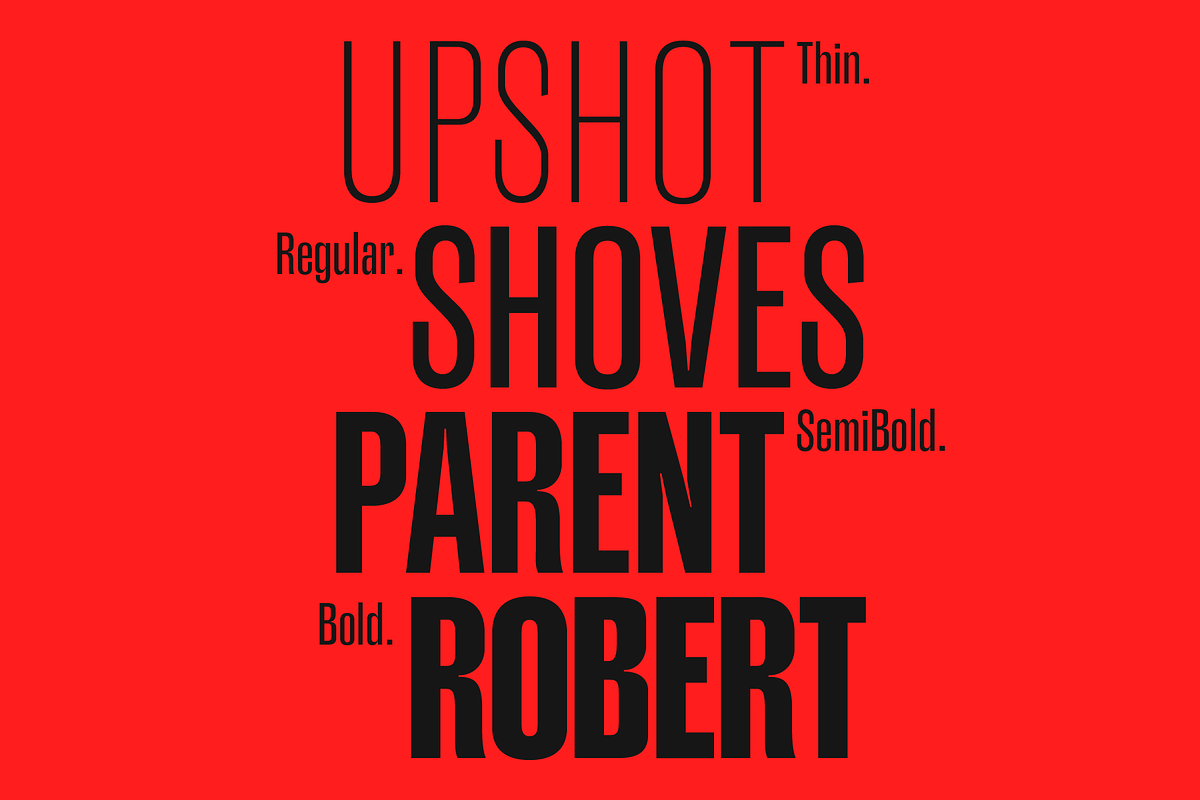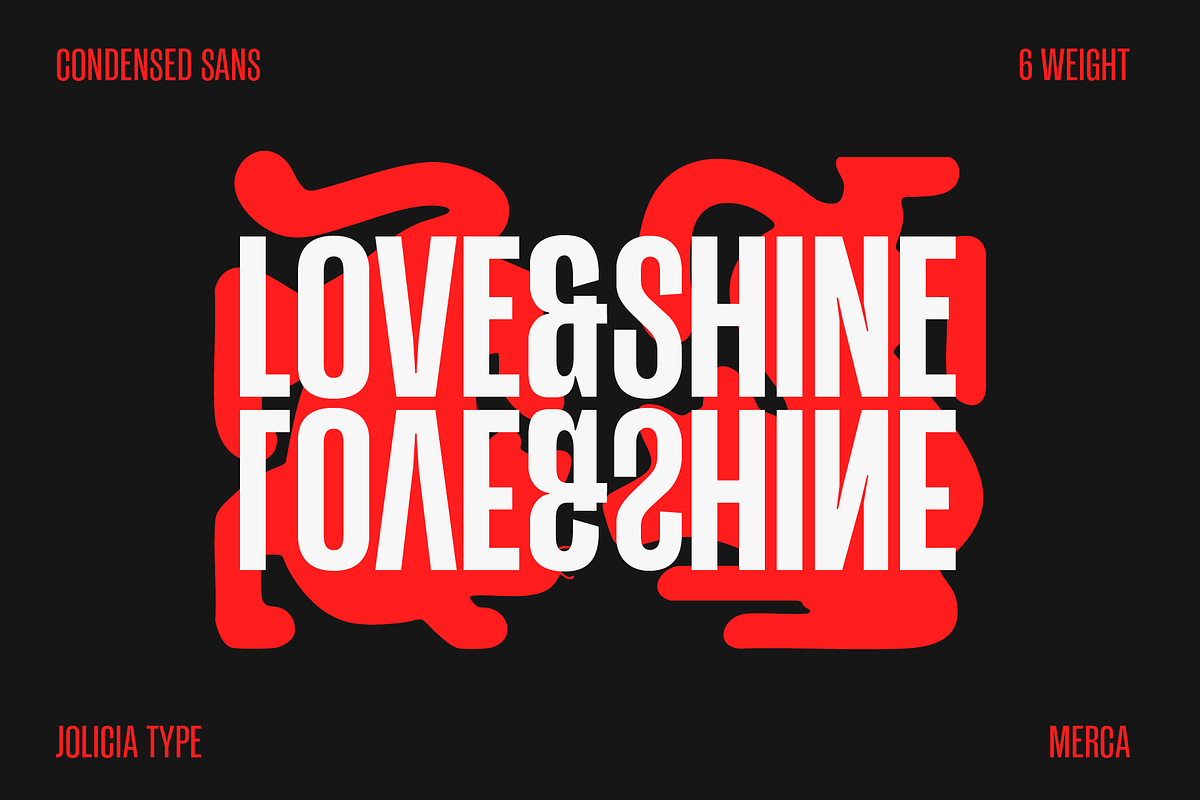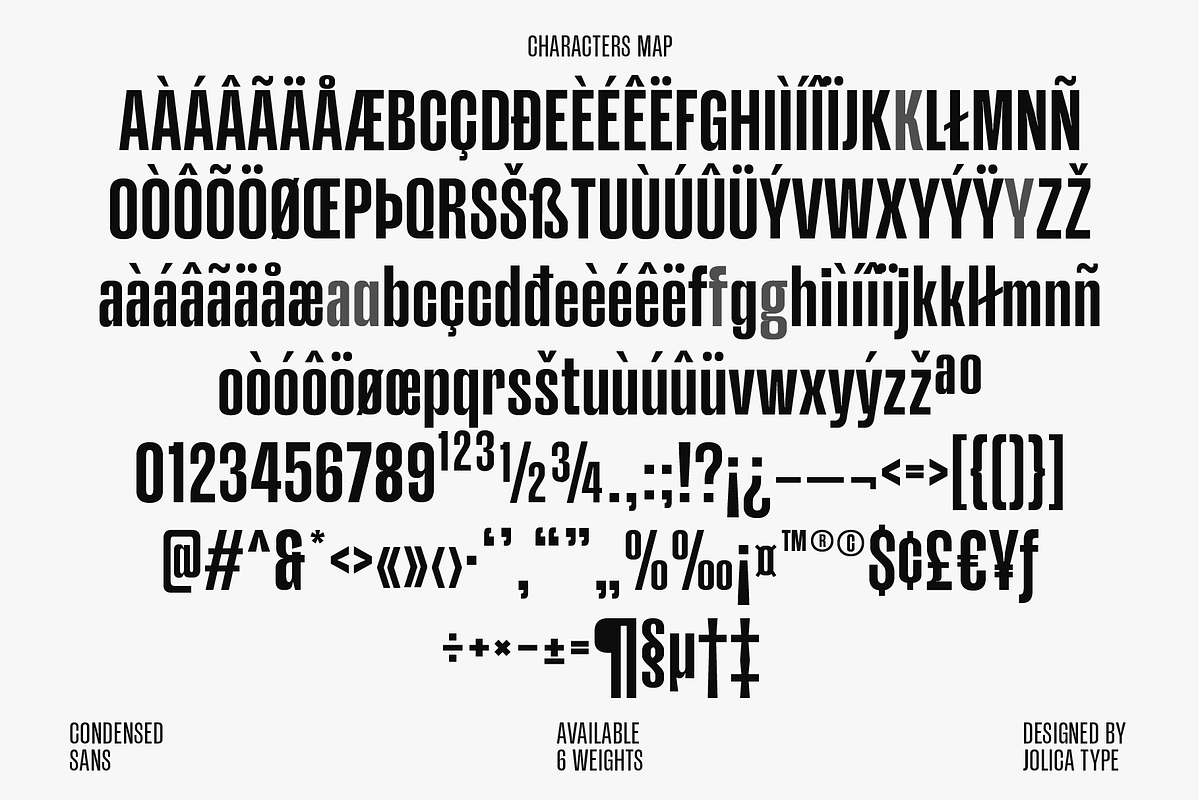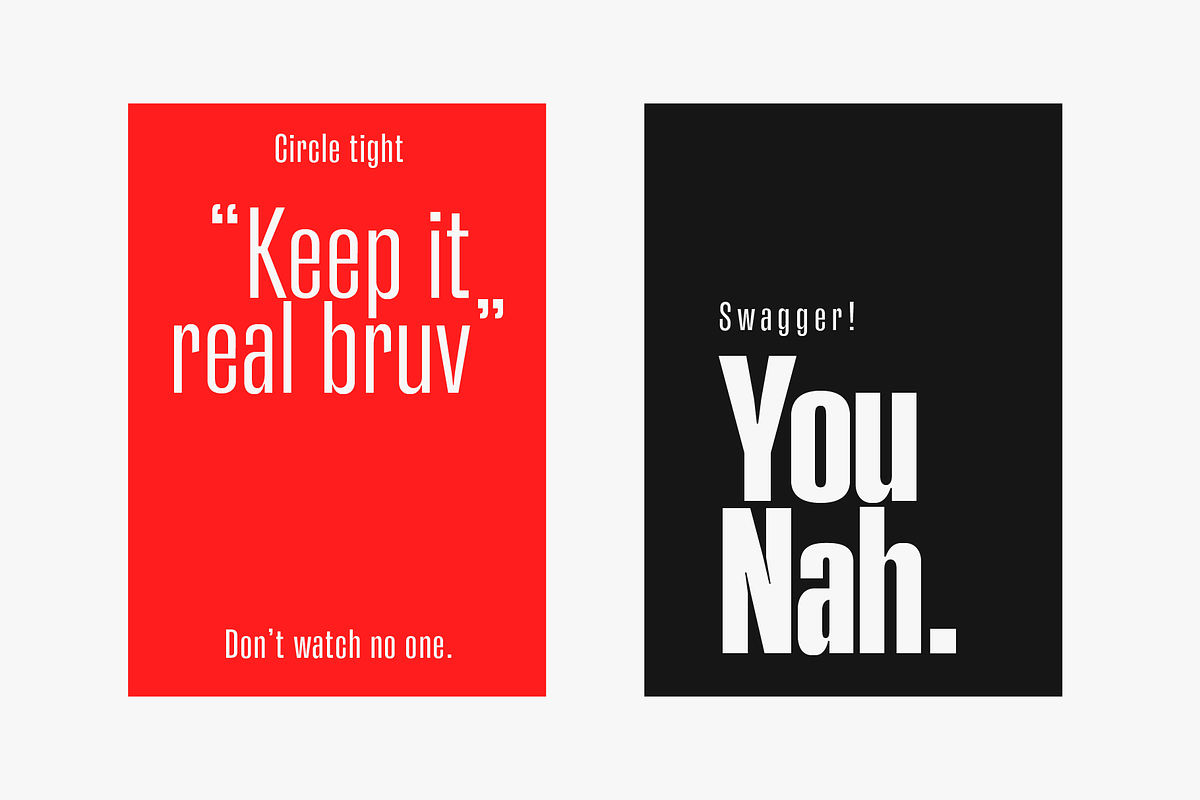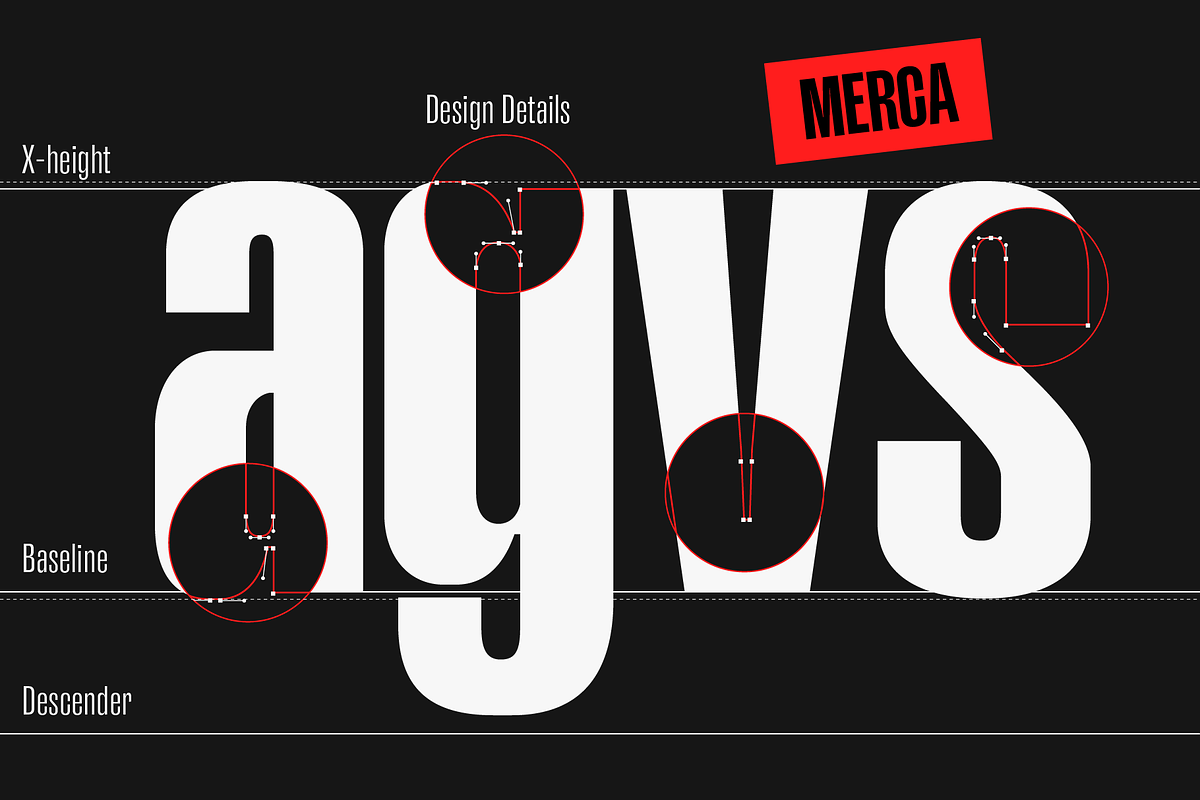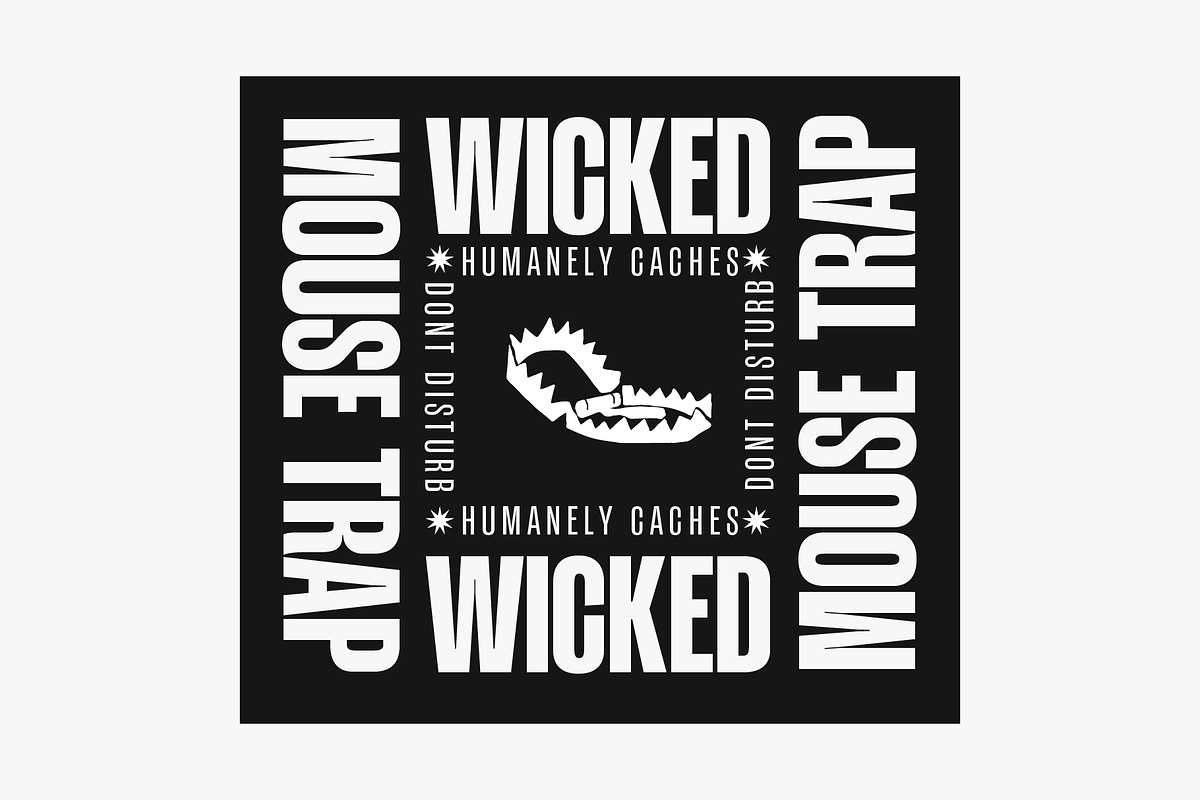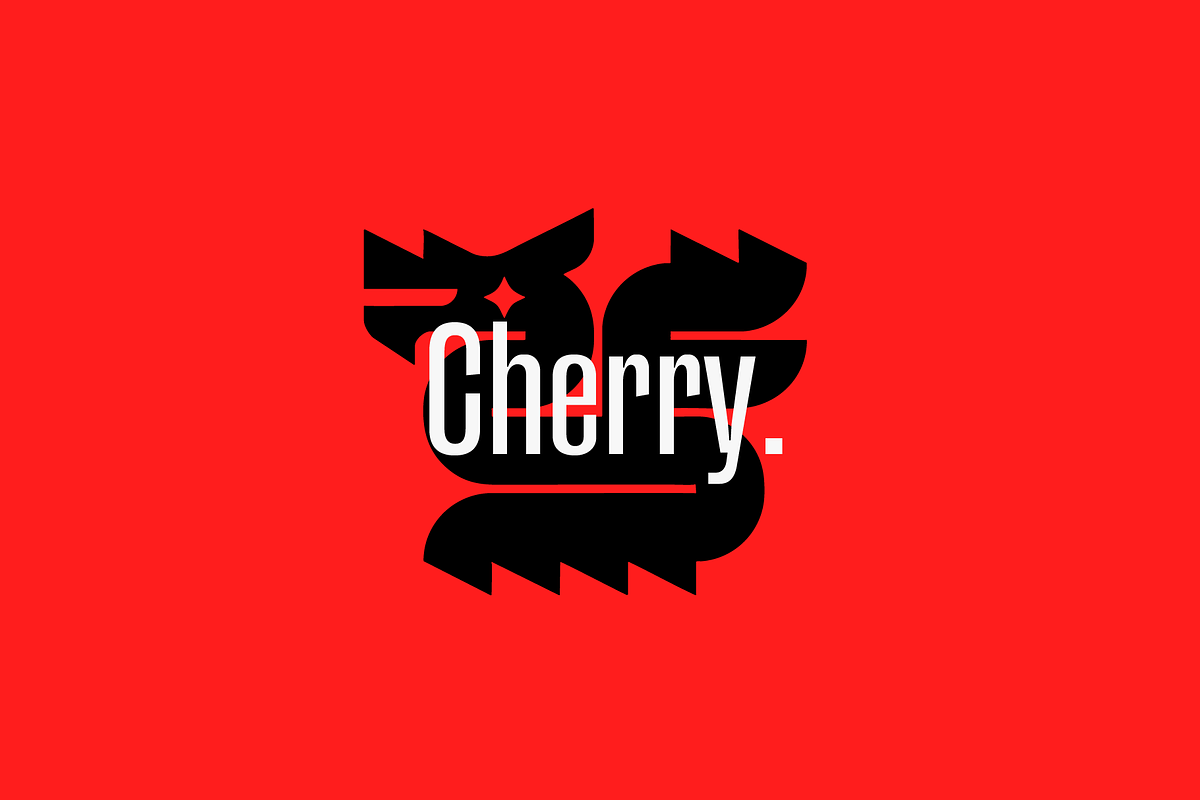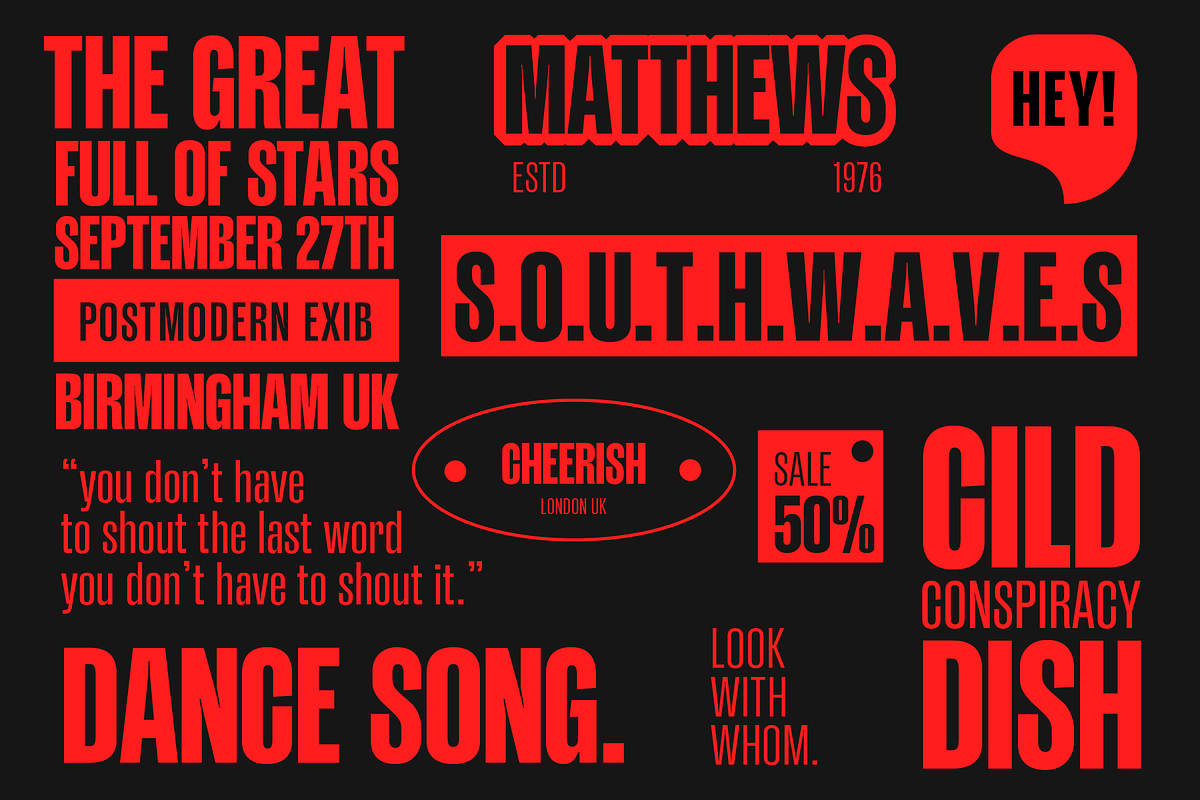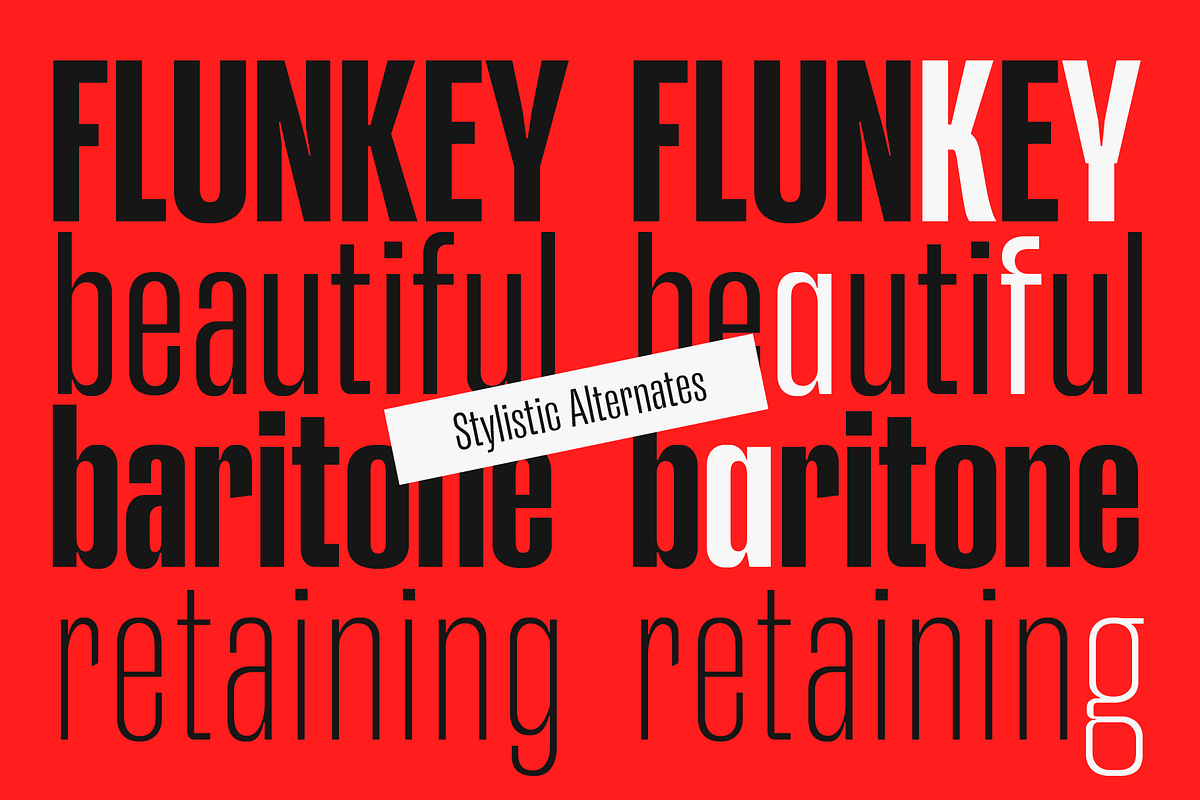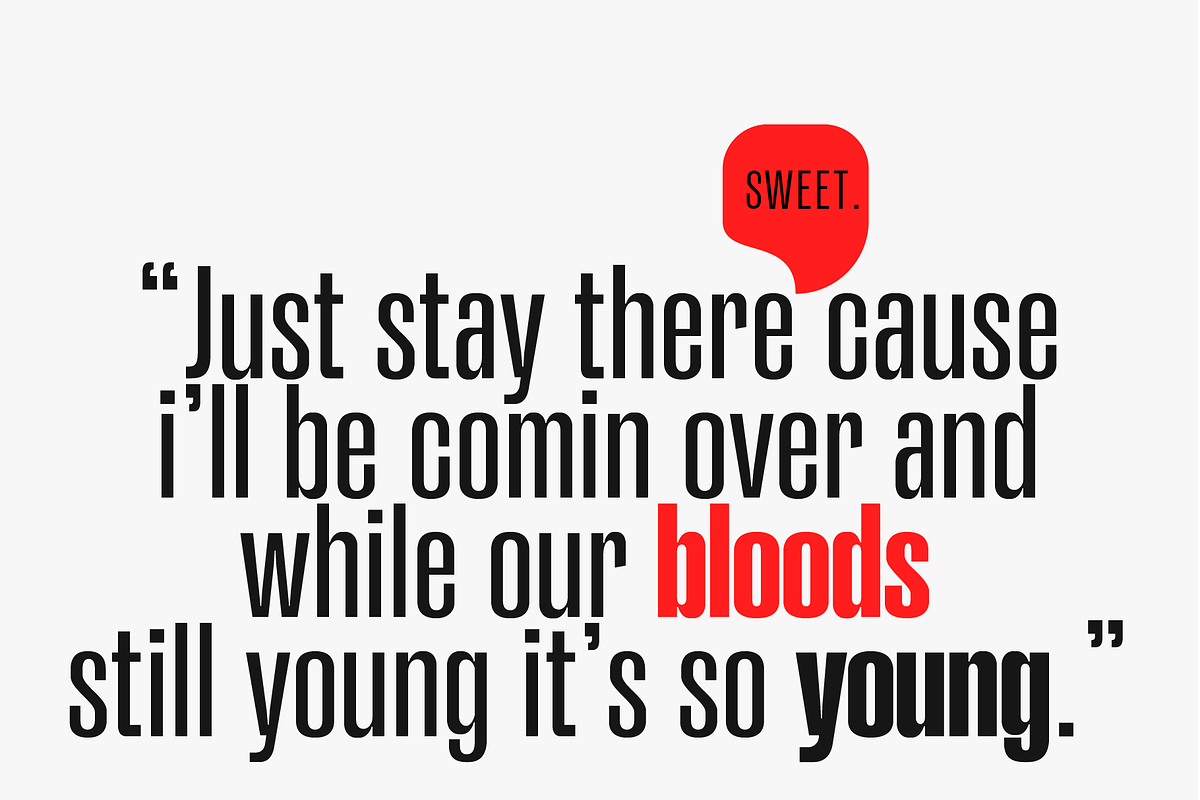
Merca | Condensed Sans
Merca is a sharply condensed typeface built for bold visual impact. With its narrow proportions, tall stance, and uncompromising vertical structure, Merca delivers a commanding headline presence while maintaining clean readability. Designed for brands that need to speak direct, strong, and unapologetically, Merca pushes a powerful typographic tone, assertive in posture, precise in rhythm, and visually dominant in any layout. The minimal contrast and compact width allow maximum messaging in limited space, making every word feel urgent, modern, and high-impact. Perfect for:
- Headlines & display typography
- Campaign posters & bold advertising
- Fashion & futuristic branding
- Magazine covers & title layouts
- Packaging, labels, and statement graphics Available in 6 weights: Thin — Light — Regular — Medium — Semibold — Bold This full weight range gives you complete hierarchy control — from ultra-thin sophistication to heavy, striking emphasis.